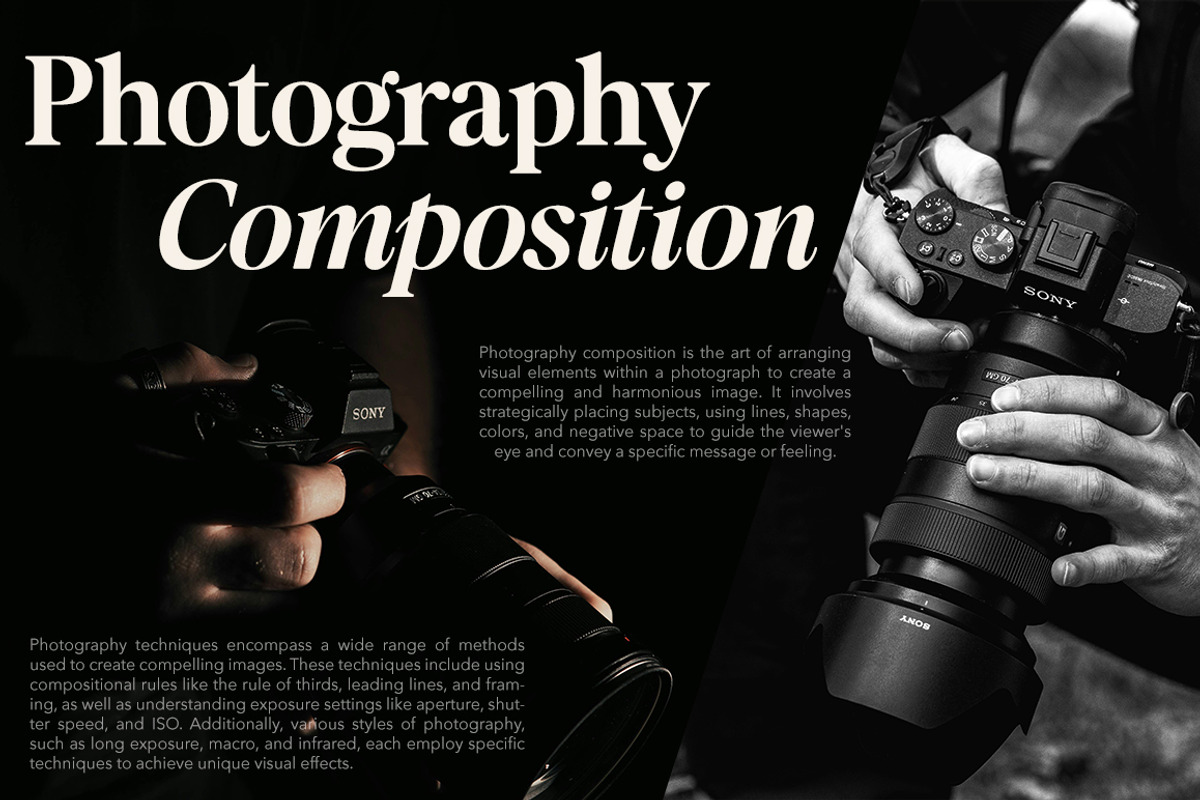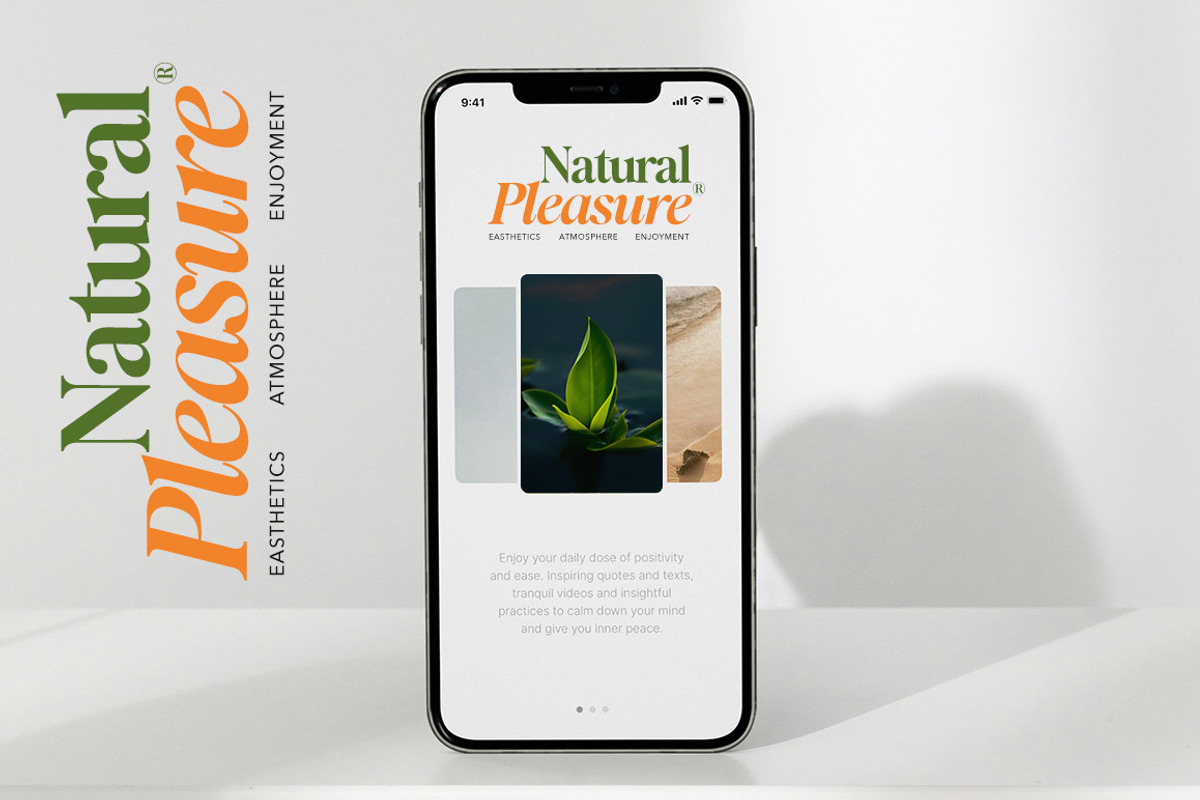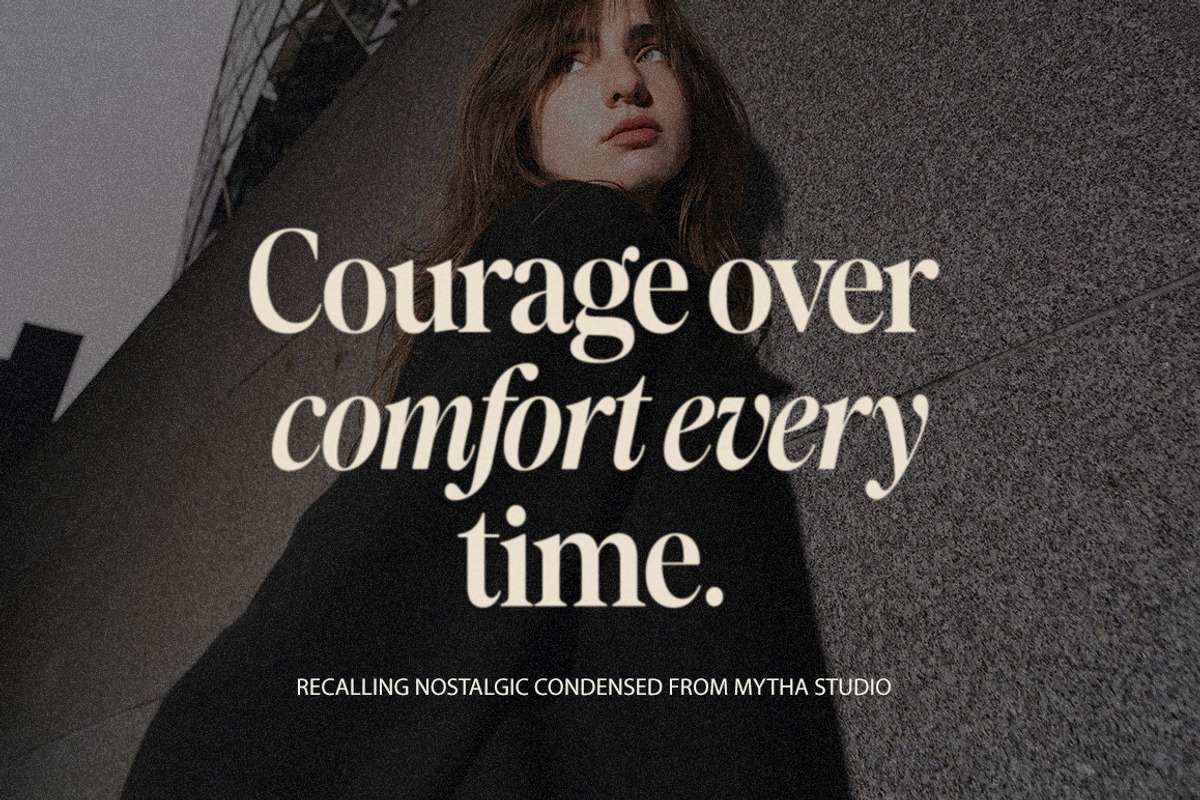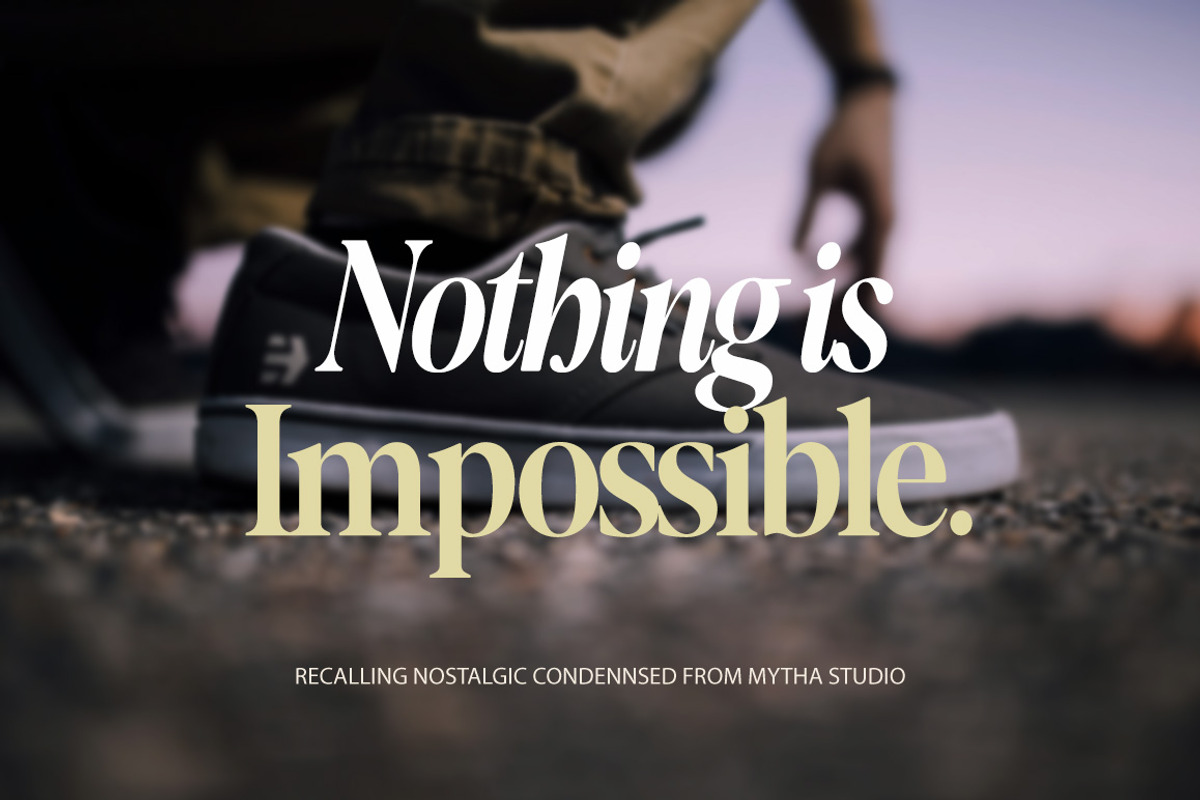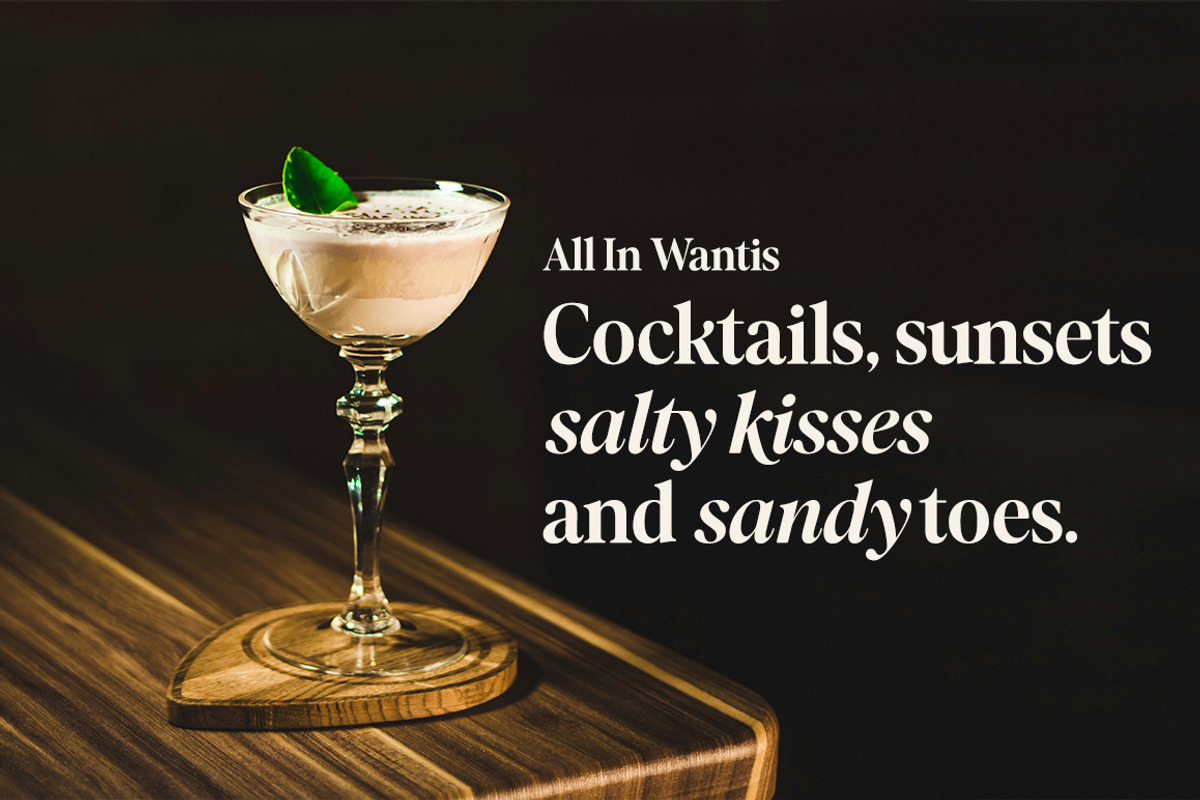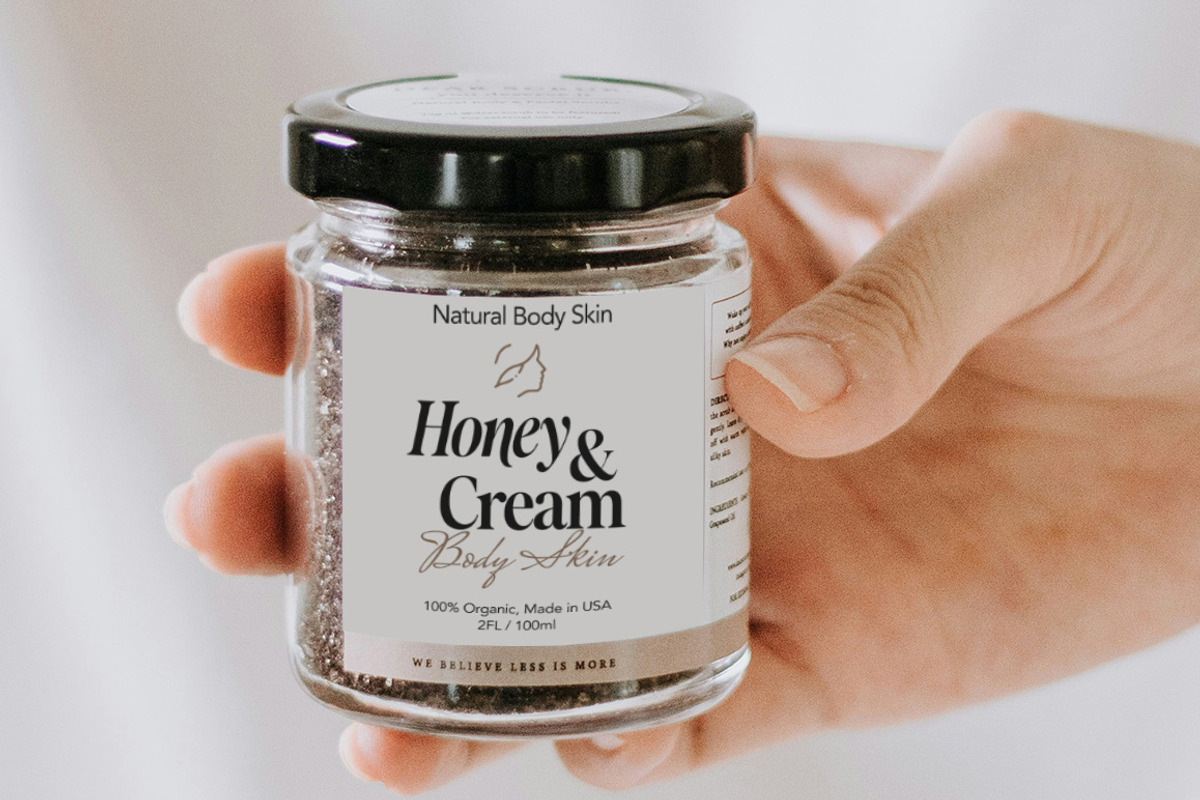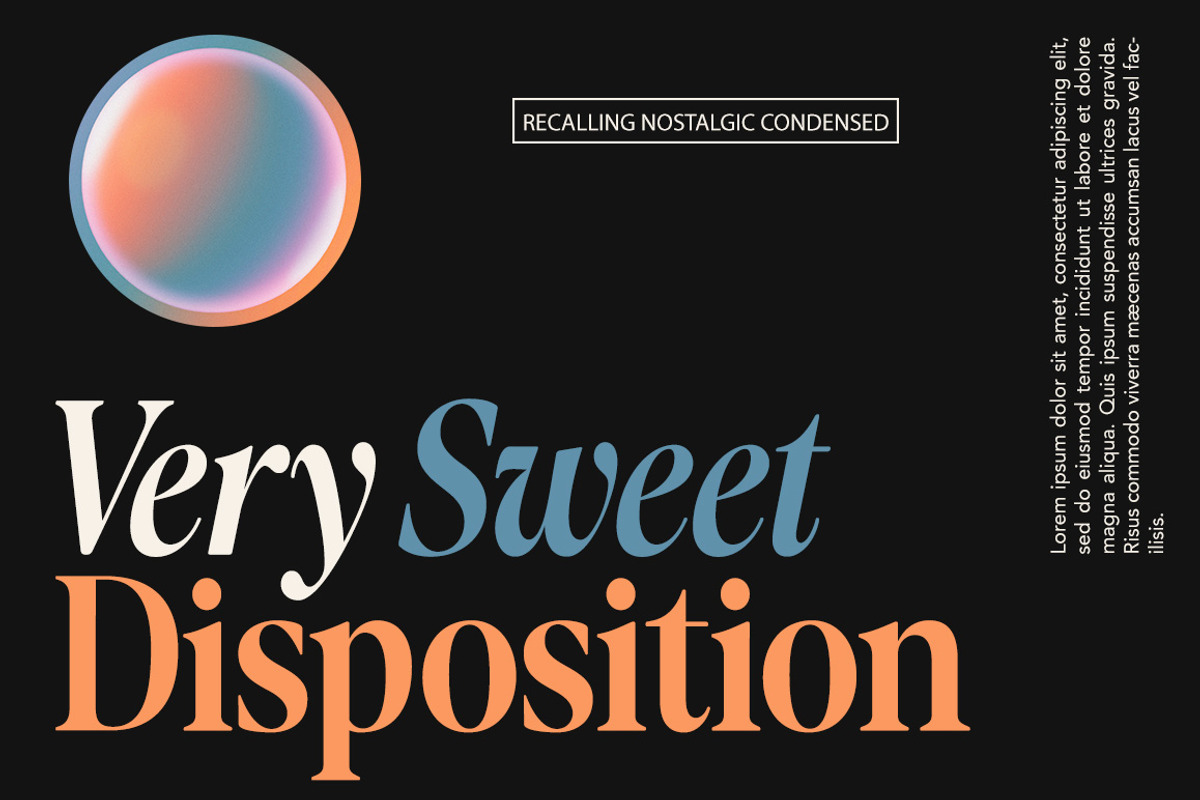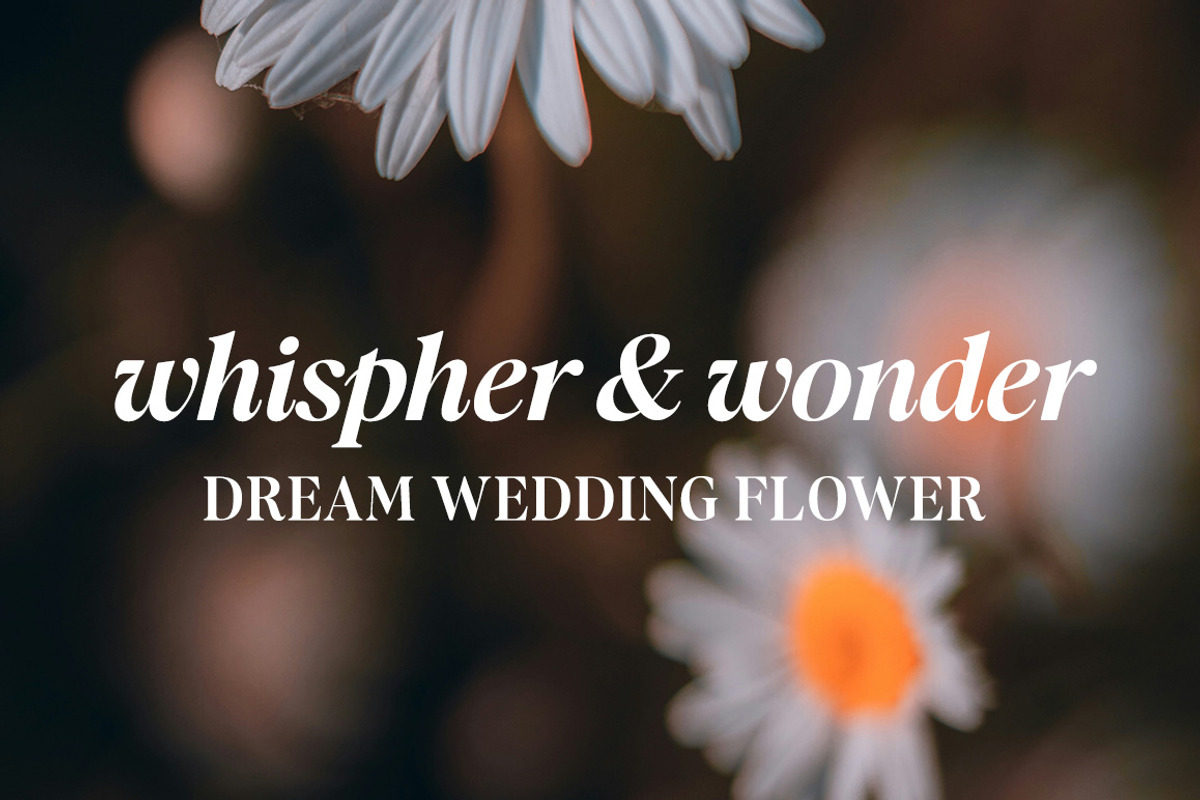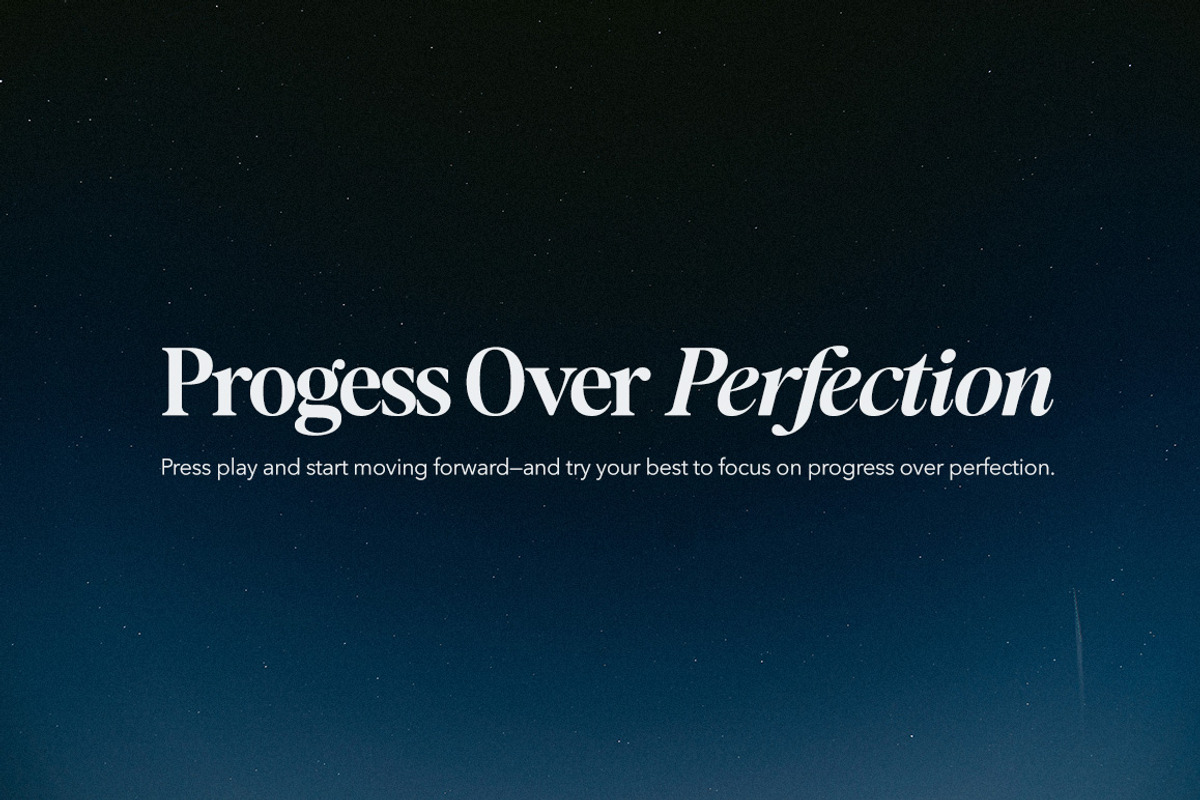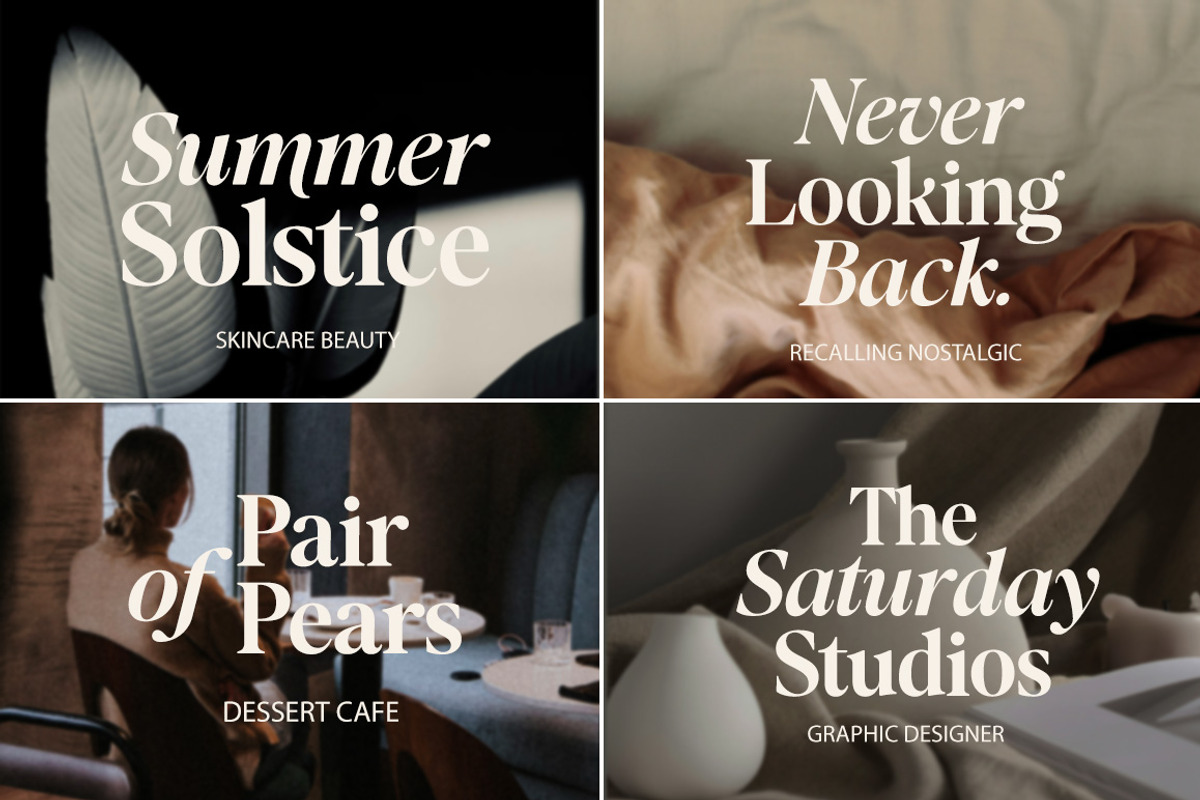
Recalling Nostalgic Font
Recalling Nostalgic is a classic-style serif font that exudes an elegant, warm, and memorable feel. With smooth yet firm letterforms, as well as a touch of traditional curved lines, this font revives the beauty of past designs in a modern look.
This font combines strong serif elements with typical old style characteristics: medium contrast, slanted axis, and decorative details at the ends of letters. It is suitable for use in nostalgic themed projects, classic editorials, luxury branding, book design, invitations, and more.
- Recalling Nostalgic Regular
- Recalling Nostalgic Italic
- Recalling Nostalgic Condensed
- Recalling Nostalgic Condensed Italic
- Classic and timeless serif style
- Suitable for headlines, editorials, and visual identities
- Has a refined and elegant character
- Gives a warm and emotional impression in design
Recalling Nostalgic is not just a font, but a feeling that is evoked through letterforms.